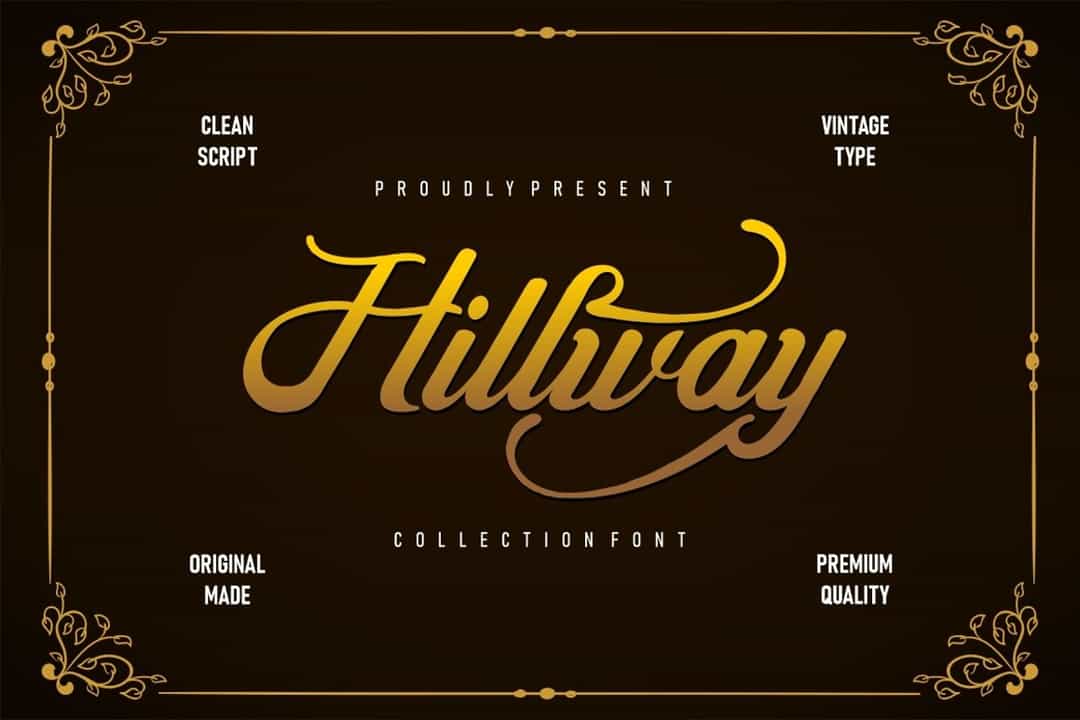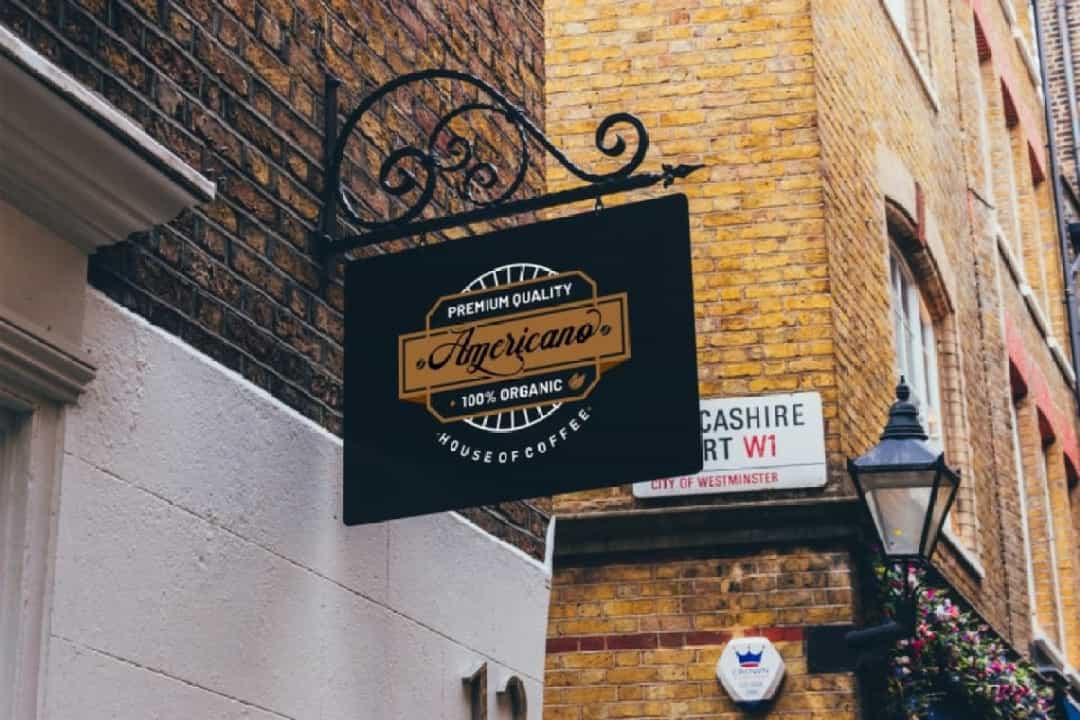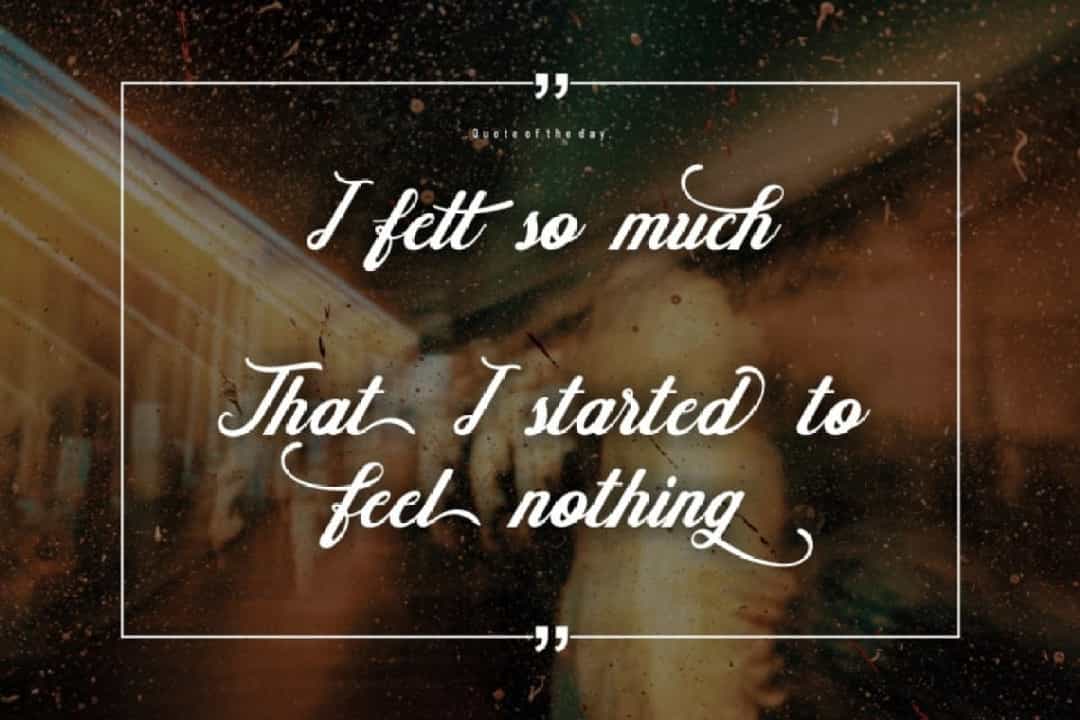
Discover Hillway Font, part of the Calligraphy Script Vintage Personal collection—a versatile and unique font perfect for adding a personal touch to your projects. Download it for free and enjoy crafting designs with style, from invitations to social media posts. This font is available exclusively for personal use, giving you the freedom to create without limits. Unlock your creativity with Hillway Font today!
Get ready for the new release of Hillway Font! Here is the new release known as the Hillway Font – A Vintage Script Font. For the graphic designers, this font is perfect for wedding invitations, fashion designs, magazine covers, books covers, typography, packaging, posters, labeling, clothing, event merchandise, quotes, social media, branding and many more.